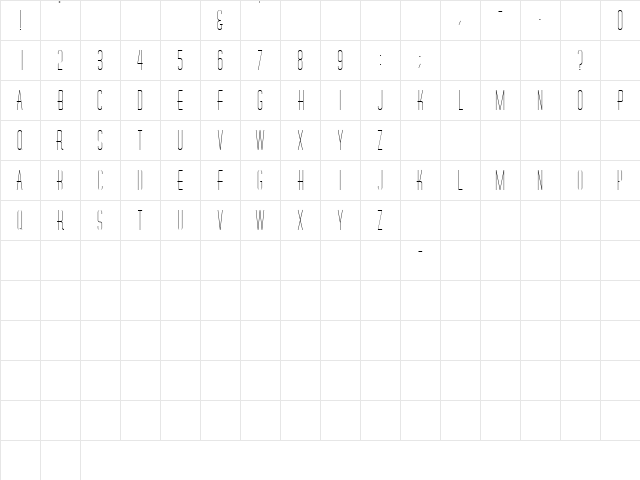
EspritCapsSSK Regular
Design Context for EspritCapsSSK Typeface
EspritCapsSSK is a composed and adaptable typeface that performs quietly and consistently across a wide range of design contexts.
Pro Tip: Use EspritCapsSSK in both headline and body roles to test its range before committing to a single application.